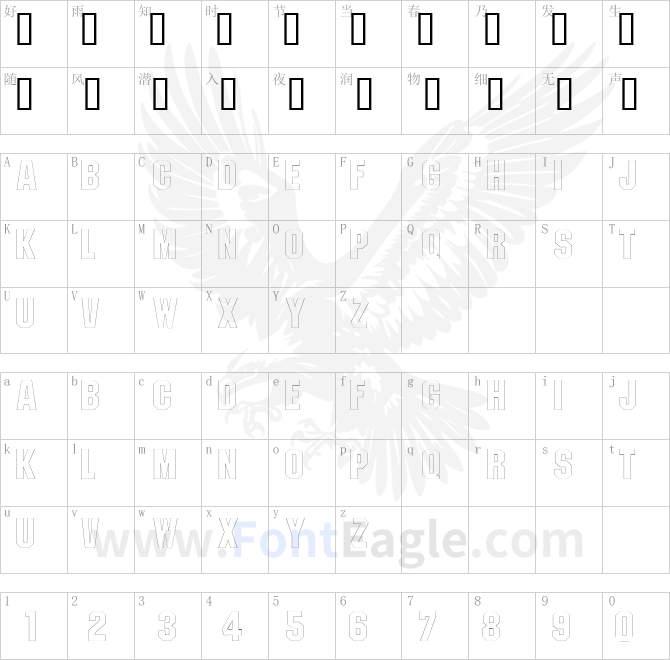
PittsburghOutline is a great font, widely used in graphic design, single-page menu design, poster design and other fields, and is deeply loved by designers.PittsburghOutline download.